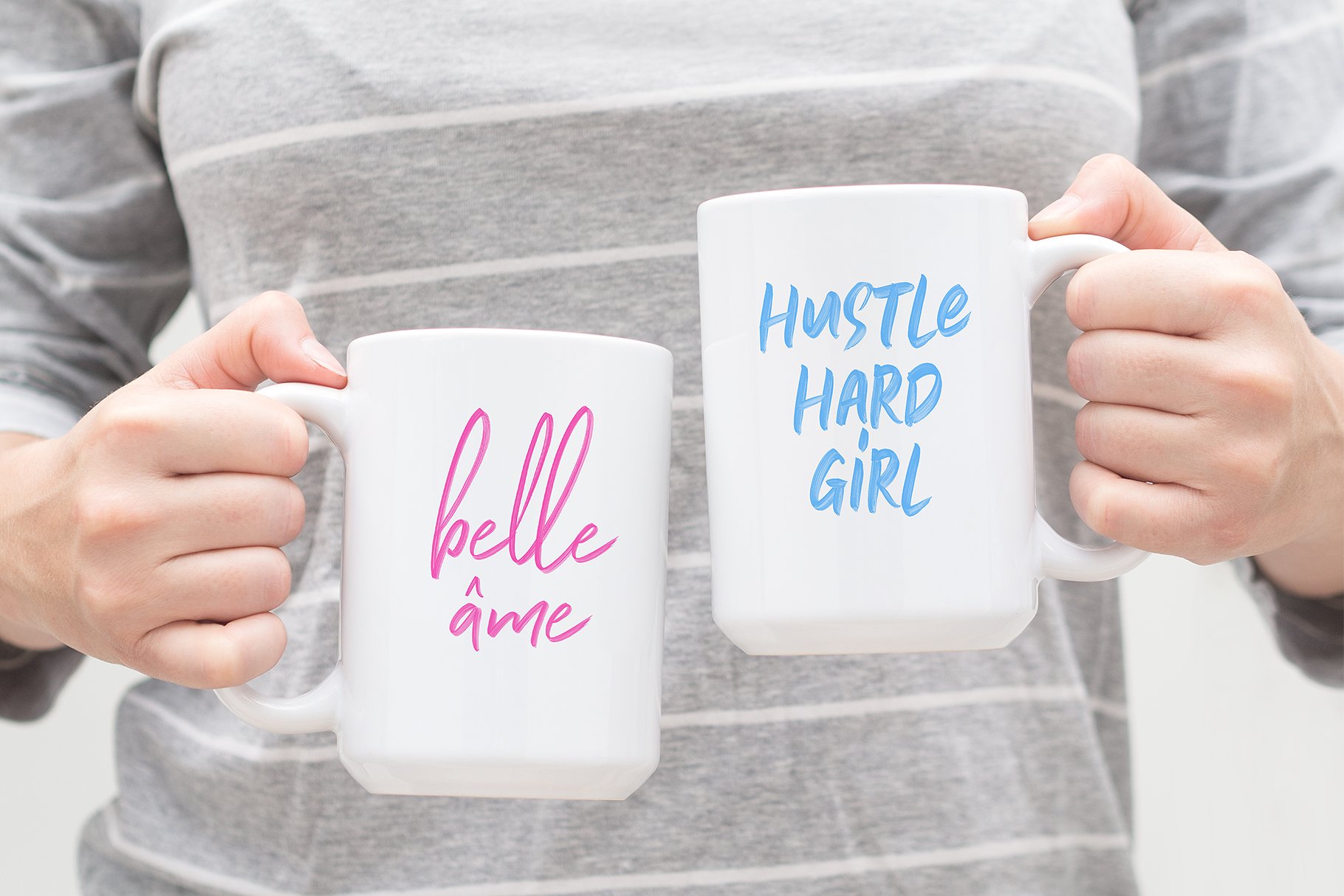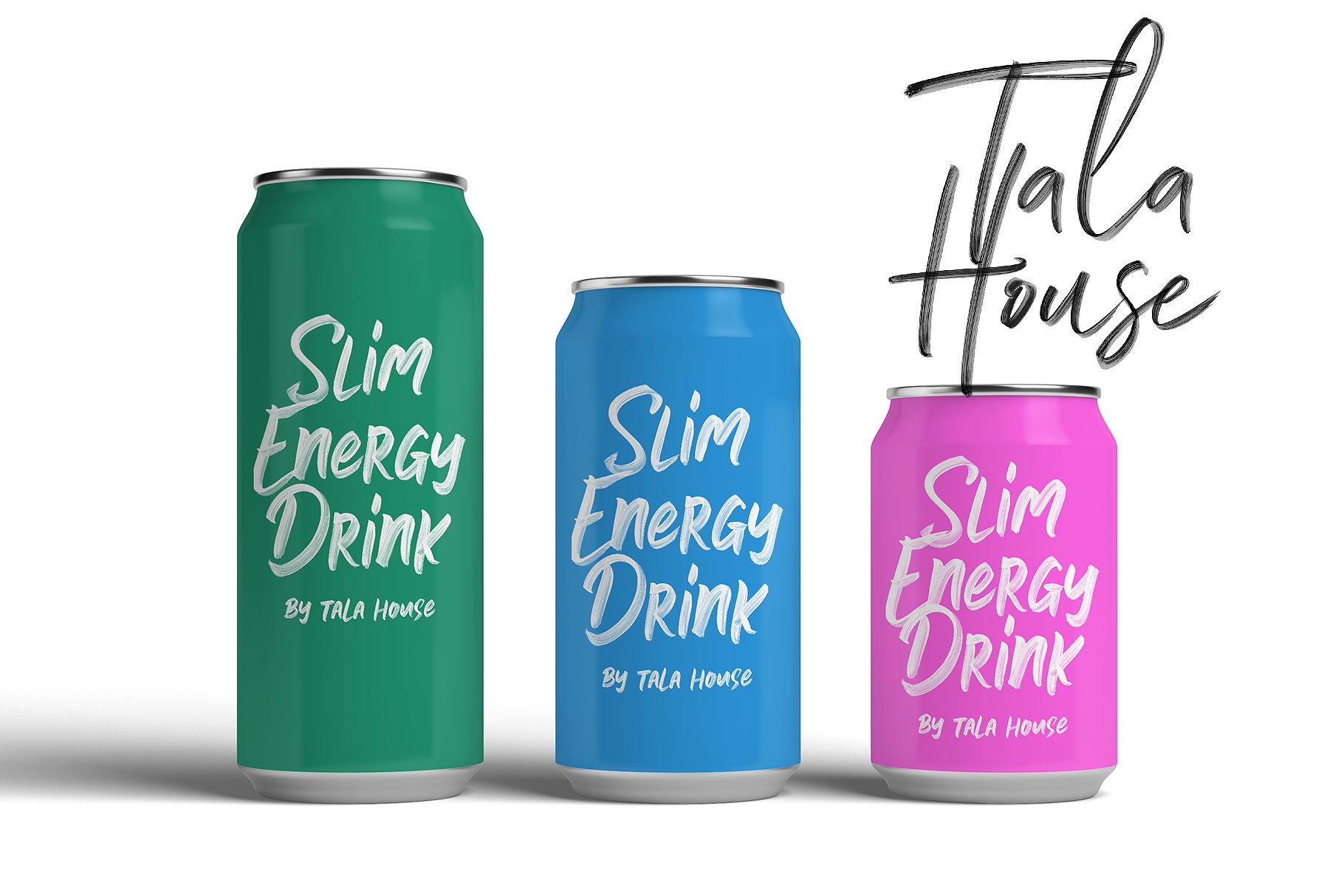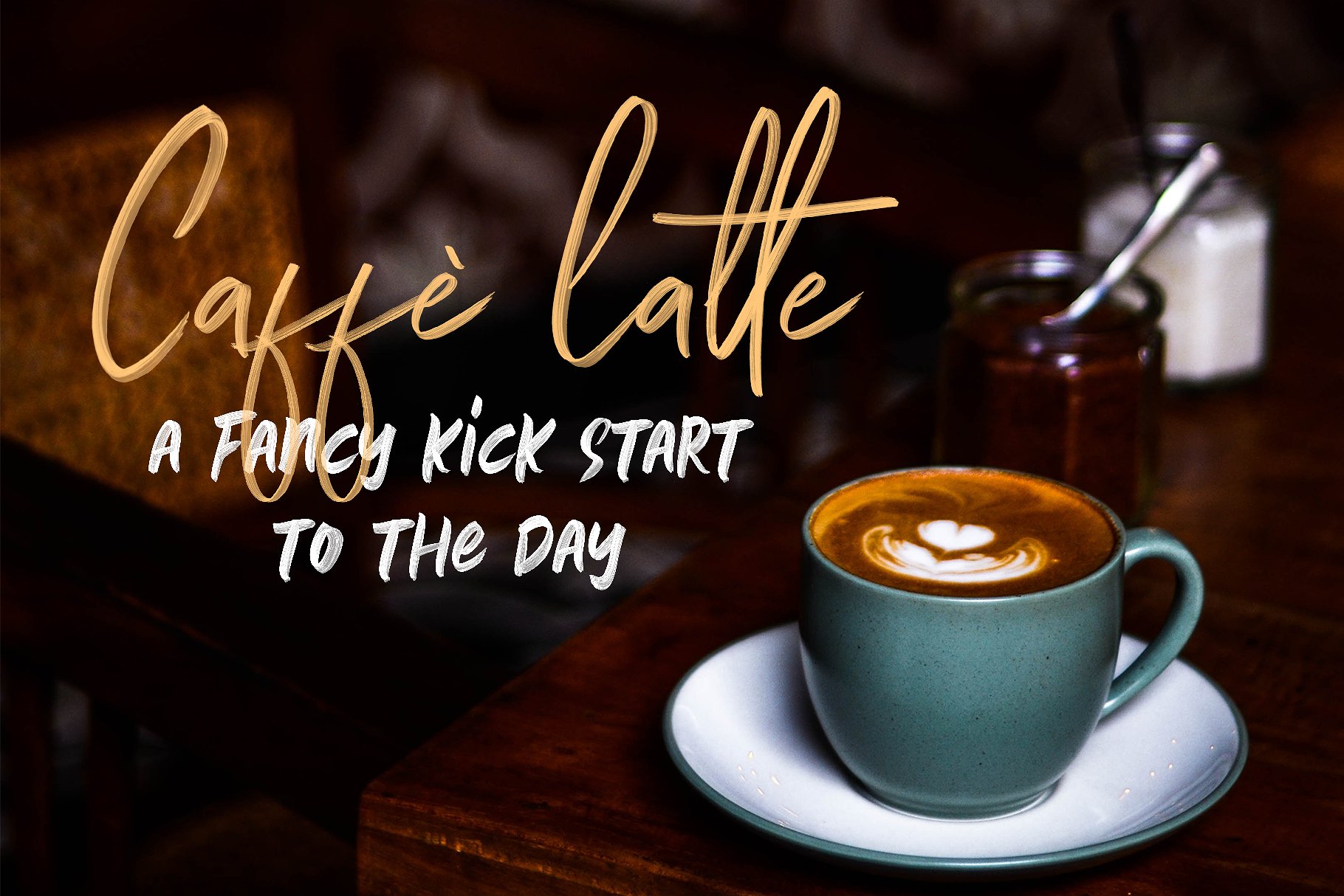
Soak Up The Sun Brush Font
Introducing Soak Up The Sun. It is designed by 50Fox, this is a premium font, are sold on creativemarket, but it was great, it is free today for download. This font duo is a combination of Signature and Bold styles. It’s great for your logo, hand-painted lettering, printed quotes, badge, insignia, packaging, headline, poster, t-shirt/apparel, greeting card, and wedding invitation, & etc.